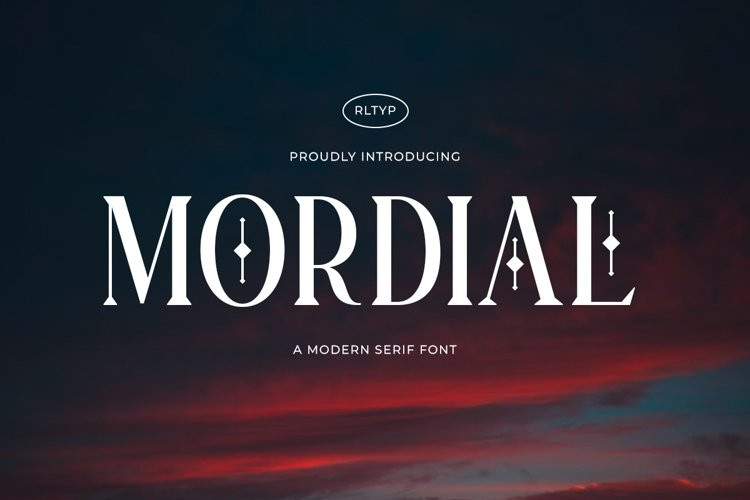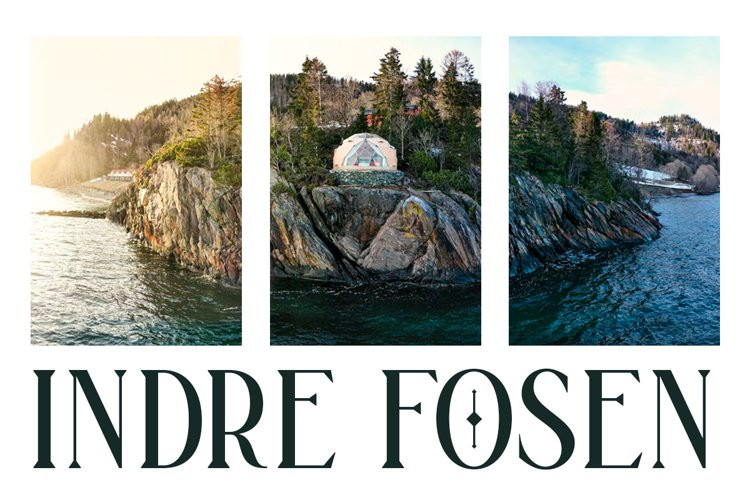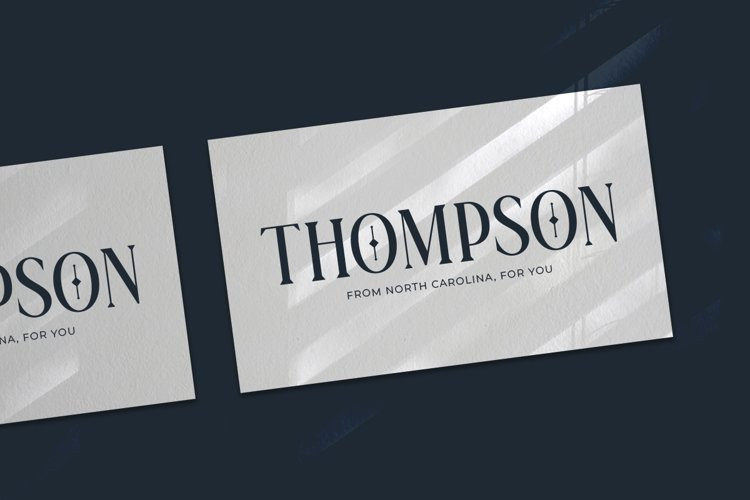
Mordial Font
Mordial FontIntroducing, Mordial. Mordial is a modern serif font that comes with lowercase and slanted version that will make your design more appealing. this font is perfect for branding purpose such as logo, packaging, magazines, books, greeting, etc.